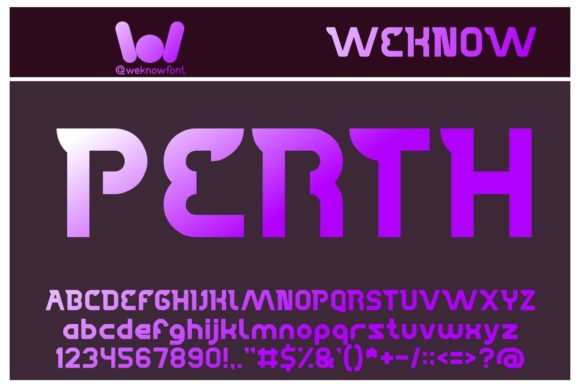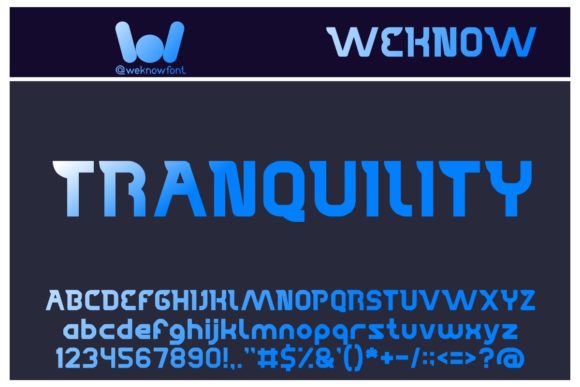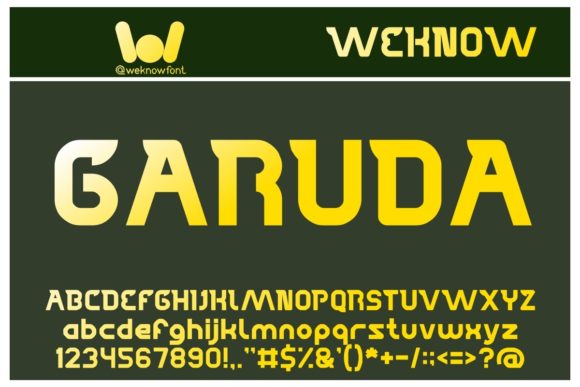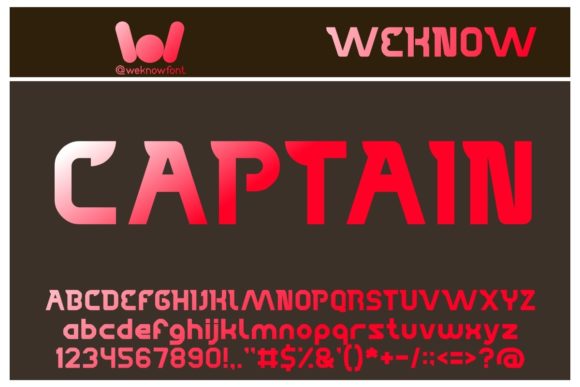
The Quest for the Perfect Futuristic Font: Discovering High Flagship
I’ll never forget the time I was working on a futuristic-themed project for a tech startup. My client wanted a font that screamed innovation, cutting-edge technology, and sleek modernity. I spent hours scouring the internet for the perfect font, but nothing seemed quite right. That was until I stumbled upon High Flagship, a cool and techno-looking display font that instantly caught my eye. In this article, I’ll share my experience with High Flagship, its features, and how to make the most of it in your designs.
First Impressions: A Futuristic Font that Delivers
High Flagship is a display font designed to add a futuristic touch to your designs. Its sleek lines, geometric shapes, and techno-inspired aesthetic make it perfect for writing web designs, business cards, or any project that requires a modern edge.
What I Love About High Flagship ✨
- ✅ Unique and futuristic design that stands out from the crowd
- ✅ Supports OpenType features, glyphs, and stylistic alternates
- ✅ Perfect for headlines, titles, and short text
- ⚠️ May not be suitable for body text or long paragraphs due to its bold and futuristic style
The Designer Behind High Flagship: A Backstory
The story behind High Flagship’s creation is shrouded in mystery, but it’s said that the font was designed by a team of creatives who wanted to push the boundaries of modern typography. Inspired by futuristic architecture, cutting-edge technology, and sci-fi movies, they crafted a font that embodies the spirit of innovation and progress.
Q: Is High Flagship suitable for body text?
A: Due to its bold and futuristic style, High Flagship is not recommended for body text or long paragraphs. It’s best used for headlines, titles, and short text.